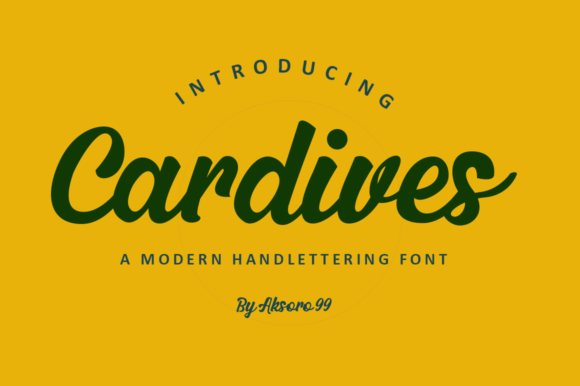
Cardives Font: Where Elegance Meets Boldness
Introducing Cardives Font, the ultimate script font that's poised to make an unforgettable impact on your designs. Its striking handwritten style lends an unmatched charm to your headlines and logotype projects, commanding attention and leaving a lasting impression.
Step into a world of creativity, where your words and designs take center stage. Cardives Font exudes strength, confidence, and dynamism, bringing your vision to life with a flair that's simply captivating. Whether you're a creative professional seeking to leave your mark or a passionate DIY enthusiast seeking to elevate your projects, Cardives Font is your go-to choice.
Transport yourself to an era of timeless elegance, where the beauty of handwritten scripts meets the power of modern typography. Let Cardives Font infuse your designs with a touch of nostalgia, adding depth and character that resonates with your audience. Its unique ligatures and alternate characters provide endless opportunities for customization, allowing you to create truly bespoke designs that speak volumes.
Cardives Font is not just a font; it's an artistic expression that empowers you to communicate with clarity and impact. Its bold strokes and flowing curves create a visual symphony that commands attention, while its carefully crafted details ensure readability even at large sizes. Whether you're designing posters, logos, branding materials, or social media graphics, Cardives Font will elevate your creations to new heights.
Discover the endless possibilities of Cardives Font today and embark on a creative journey that's sure to leave a lasting impression. Let your imagination soar as you witness the transformation of your designs, from ordinary to extraordinary. Embrace the power of this remarkable font and unlock a world of creative expression that knows no bounds.